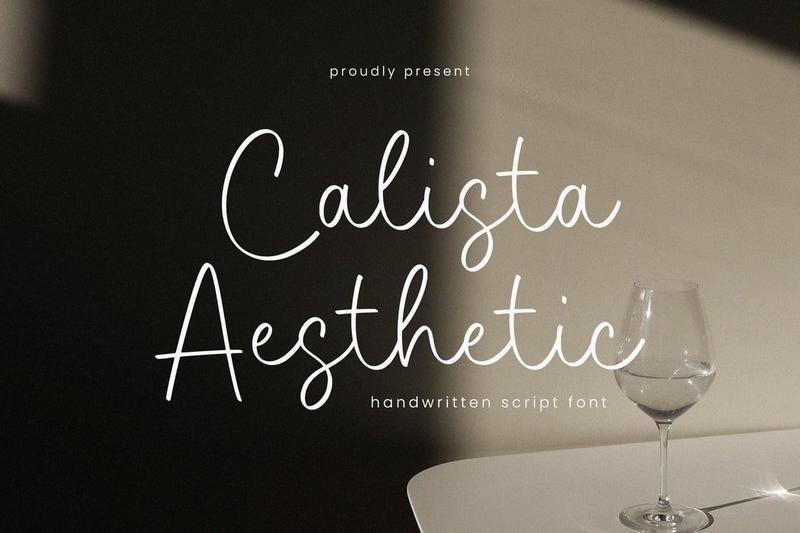
Calista Aesthetic A Handwritten Script Font, which was created with great care and specially created for you.
Calista Aesthetic is perfect for product packaging, branding project, megazine, social media, wedding, or just used to express words above the background.